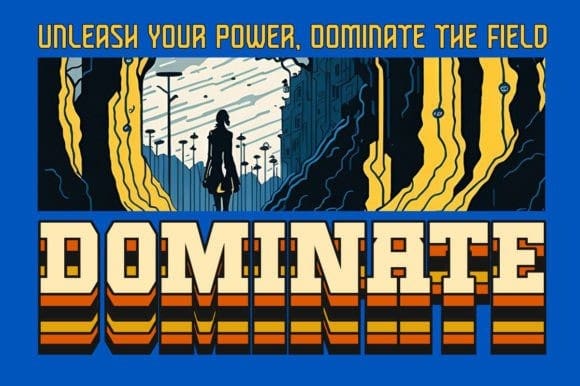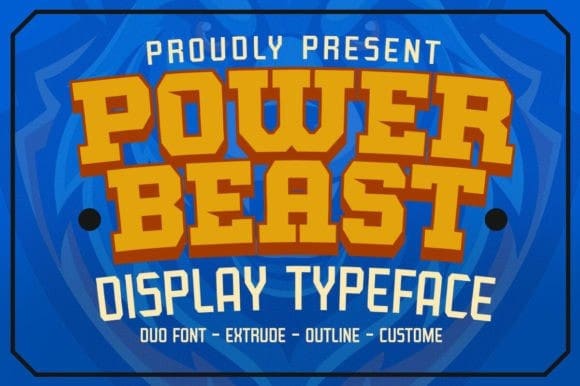
Power Beast Font
Power Beast Font: A bold and athletic slab serif typeface exuding strength and vigor. With 3 styles and 2 custom variations, it’s versatile for any vibe. Ideal for logos, headlines, signage, and more. Perfect for adding a sporty touch to your designs.